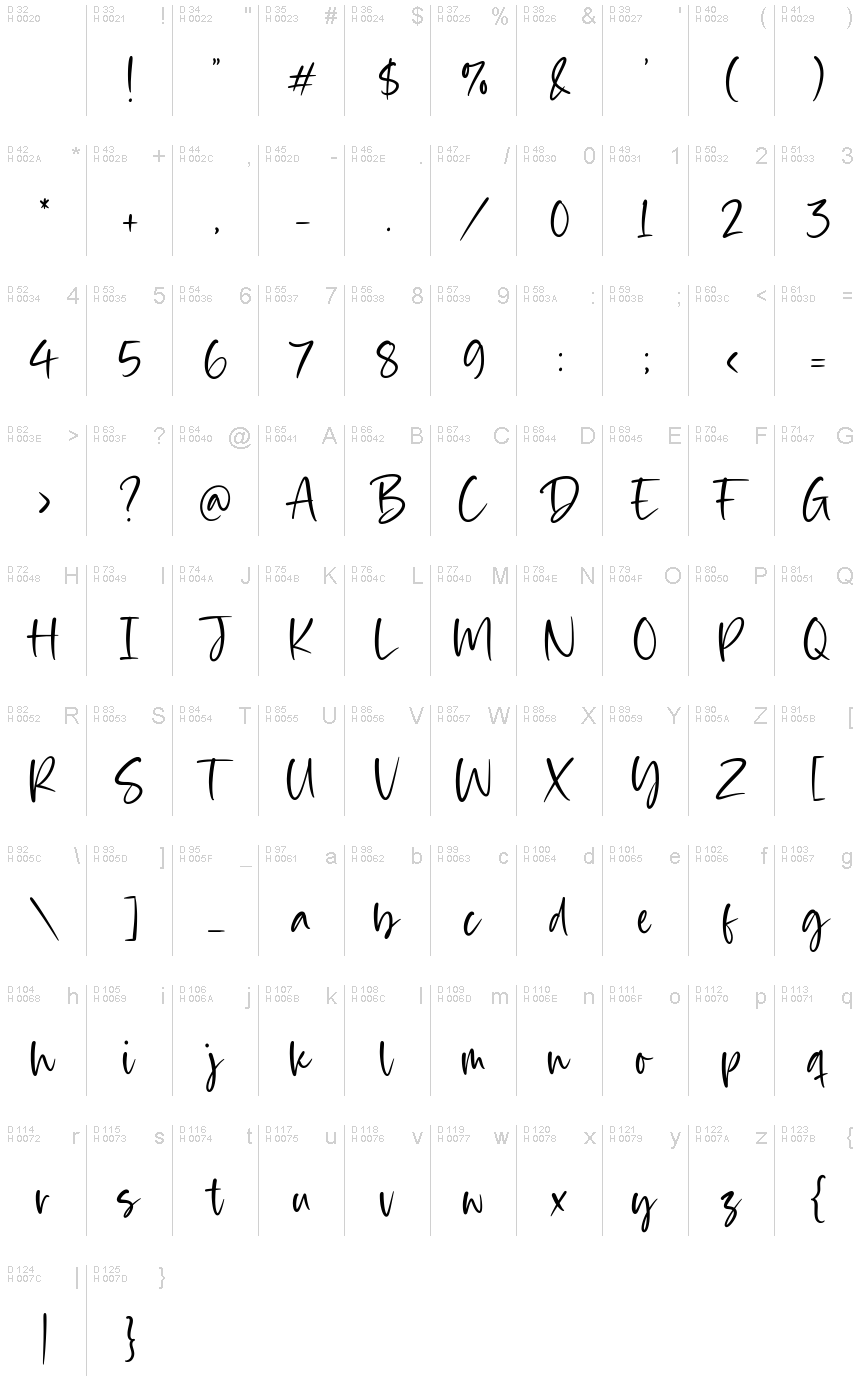
Goblin Hunters
Goblin Hunters font, crafted by Balpirick Studio, embodies a playful handwritten style that captures attention with its dynamic and expressive flair. The flowing curves and irregular baselines lend an authentic charm to this light font, reminiscent of spirited penmanship. Its aesthetic appeal lies in its ability to blend casual elegance with creative spontaneity, making it ideal for projects that require a personal touch.
Perfect for designs where uniqueness is paramount, Goblin Hunters shines in branding, invitations, or social media graphics—anywhere you want to infuse personality. Available as a free font for download, it's an excellent choice for designers seeking versatility and warmth in their typography toolkit. Enhance your creative projects today with this captivating handwritten font.